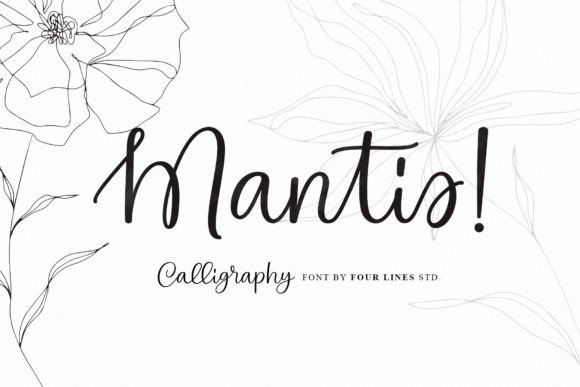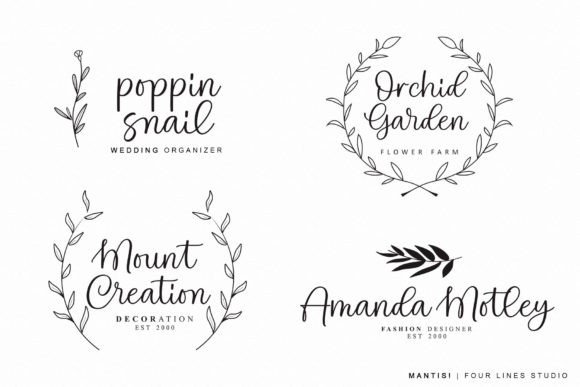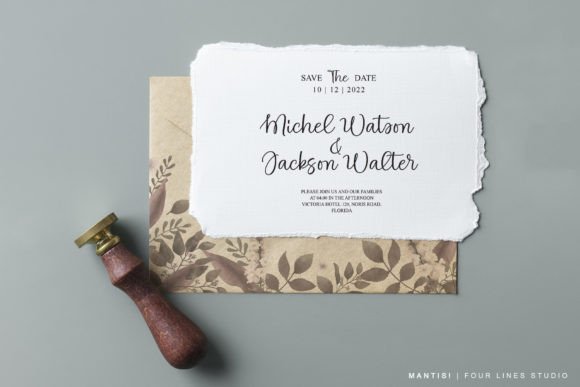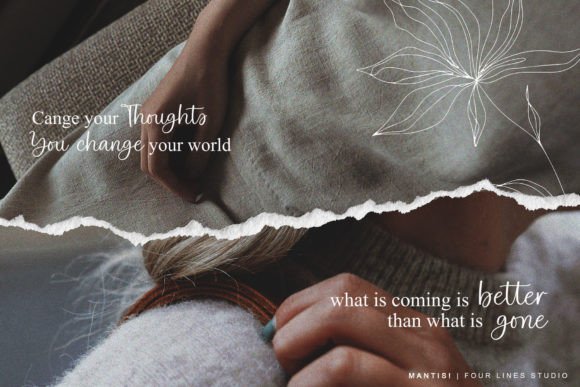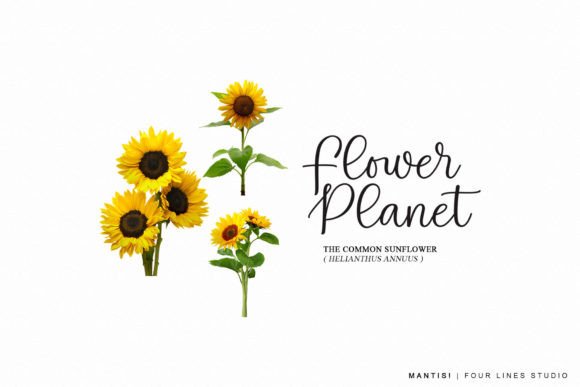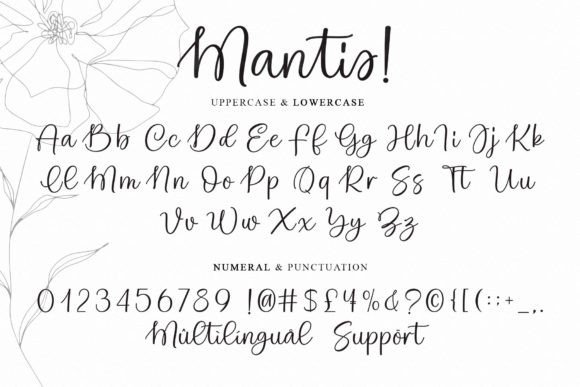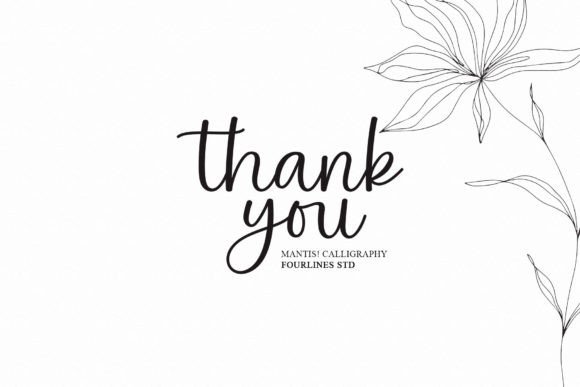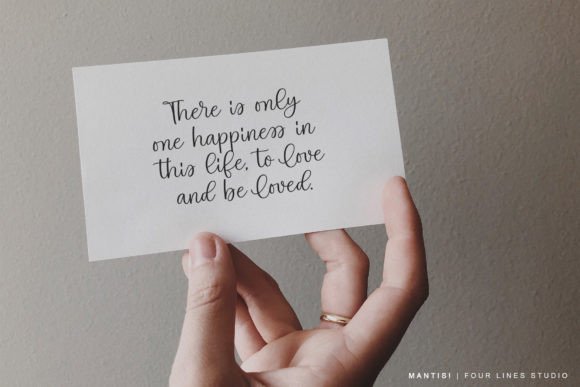
Mantis! Font
About Mantis! Font
“Mantis!” is a contemporary and gracefully designed calligraphy font, characterized by its natural and flowing style. This font radiates modernity and elegance, making it an ideal choice for a wide range of creative projects. Whether you’re working on quotes, logos, business cards, crafting, or any design that requires a sweet and romantic touch, “Mantis!” is sure to meet your needs with sophistication.
The charm of “Mantis!” is in its ability to convey a sense of natural beauty and timeless elegance. The font’s fluid strokes and gentle curves create a refined and inviting aesthetic that adds a touch of sophistication to your projects.
One of the standout features of “Mantis!” is its versatility. It can seamlessly adapt to various design themes and moods, making it suitable for both professional and creative endeavors. Whether you’re aiming for a romantic and dreamy look or a sleek and contemporary style, “Mantis!” can be your go-to font.
When you incorporate “Mantis!” into your designs, you can expect to infuse a sense of sweetness and romance into your projects. This font has the power to evoke emotions and create a lasting impression on your audience, whether you’re designing for personal or business purposes.
In summary, “Mantis!” is not just a font; it’s a design asset that can elevate your creative projects with its modern elegance and natural beauty. Its versatility makes it a valuable addition to your design toolkit. Feel confident in using “Mantis!” in your projects, and discover how it can bring a touch of sweet romance and sophistication to your designs!